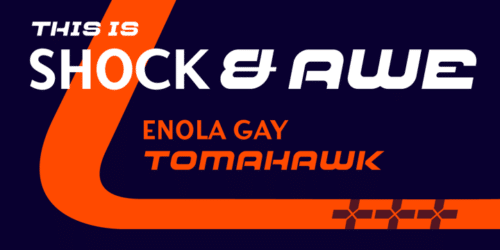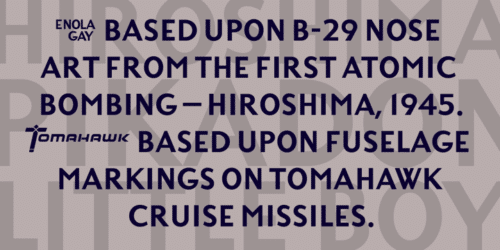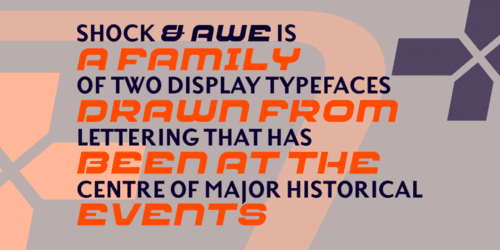
Shock and Awe is a family of two display typefaces drawn up from lettering that has been at the centre of major historical events. Enola Gay is based upon nose art from the B-29 Superfortress bomber that dropped the first atomic bomb, on the Japanese city of Hiroshima, in 1945. Tomahawk is based upon the fuselage lettering of the original (then) General Dynamics manufactured Tomahawk cruise missile.
Tomahawk missiles were introduced into military service in the 1970s and have been deployed by US and UK ‘coalition’ forces in a number of conflicts, including both the 1991 Gulf War and the 2003 invasion of Iraq.